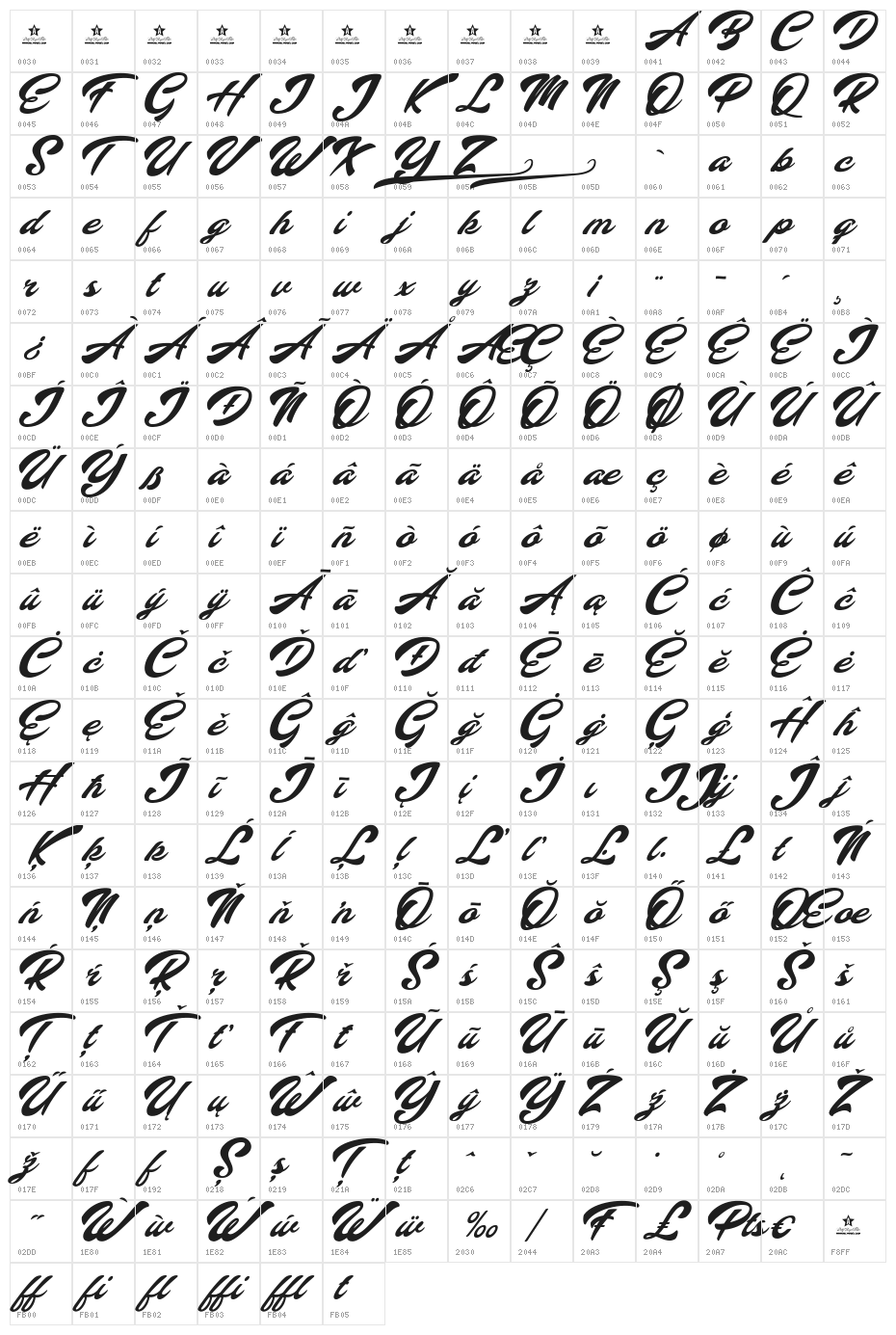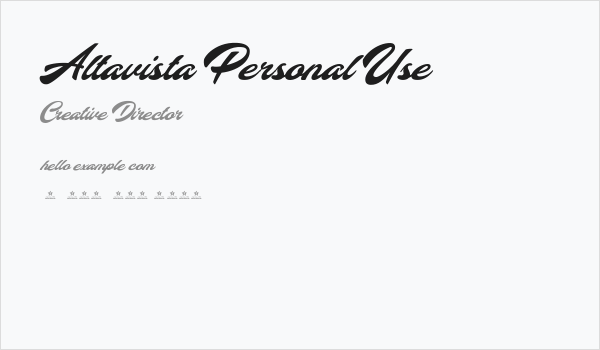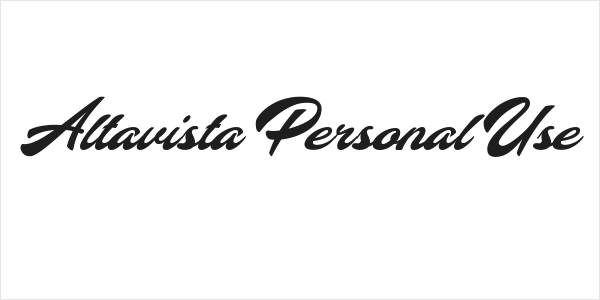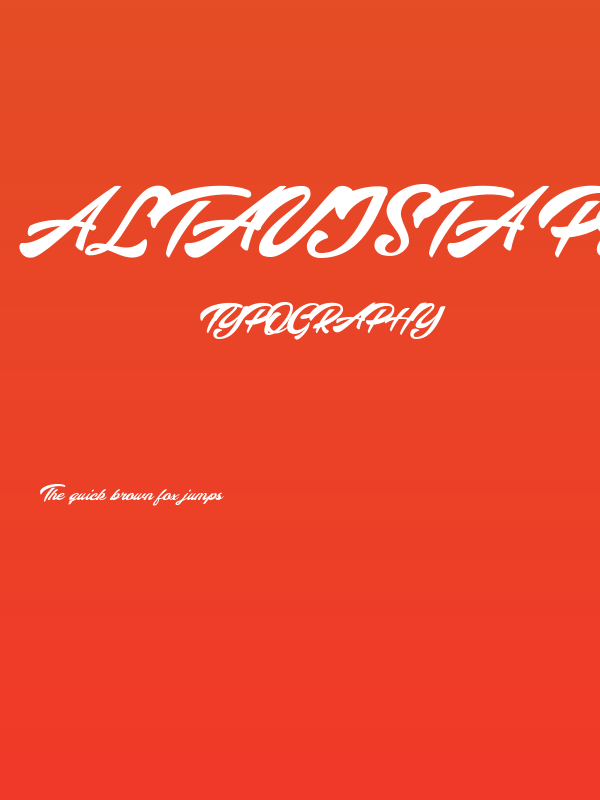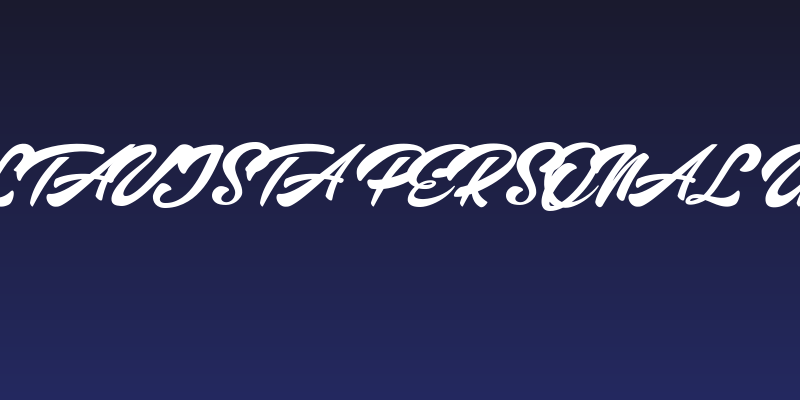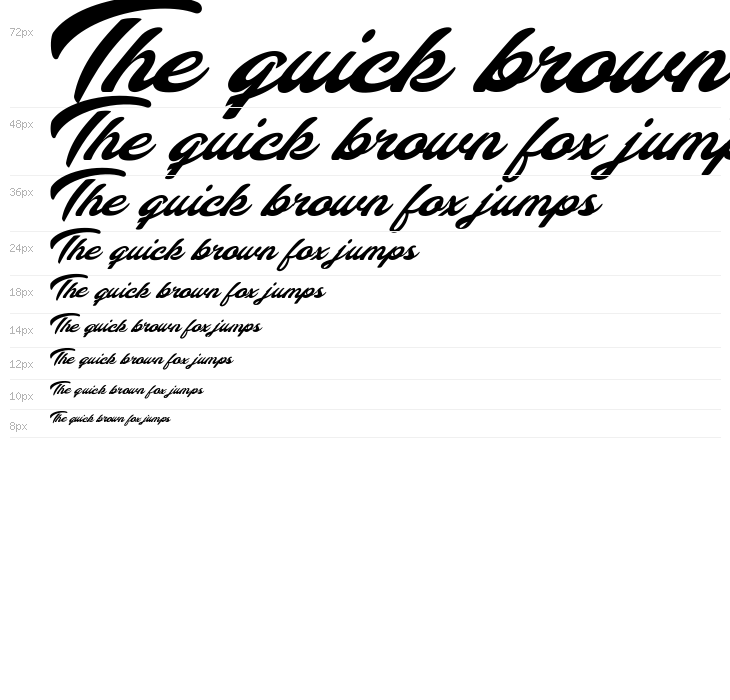
Altavista Personal Use Font
Altavista Personal Use Description
This font features a bold, cursive style with a strong emphasis on fluidity and elegance. The characters are interconnected, creating a seamless flow that mimics natural handwriting. The uppercase letters are slightly larger and more pronounced, while the lowercase letters maintain a consistent size and style. The strokes are thick and consistent, providing a sense of strength and stability. This font is ideal for creating a personal and sophisticated touch in any design project. The overall appearance is both classic and modern, making it versatile for various applications.
| Proposed Projects | Ideal for wedding invitations, branding, logos, and any project requiring a personal touch. |